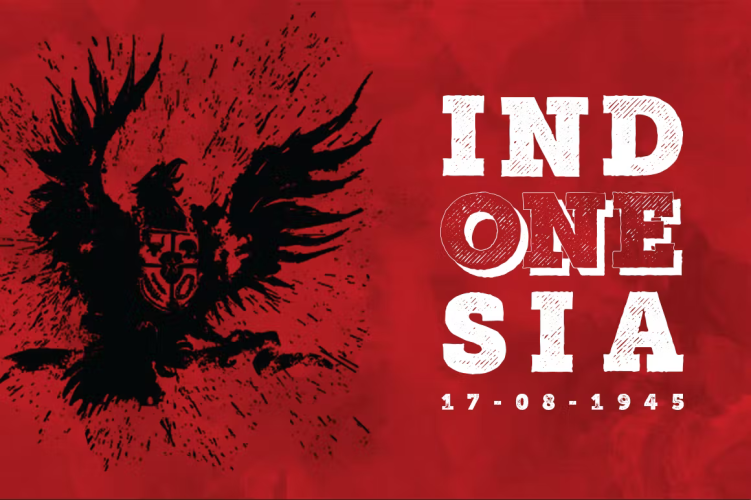
Mutiara Vintage Font
We present tou you Mutiara Vintage a typeface with vintage taste, including 4. font. The font family is slab, bold, rough, multilingual supoorted and was completely 54 alternate character. best to your typography, headline, t-shirt design.
Where Mutiara Vintage Font works best
Headlines and titles
Mutiara Vintage Font has enough character to carry a headline on its own; set it large and keep the supporting text plain.
Brand and product names
Short strings are where this typeface is strongest — a name, a label, a cover line.
Social and video graphics
Set Mutiara Vintage Font over a flat colour or a quiet photograph so the letterforms stay the focus.